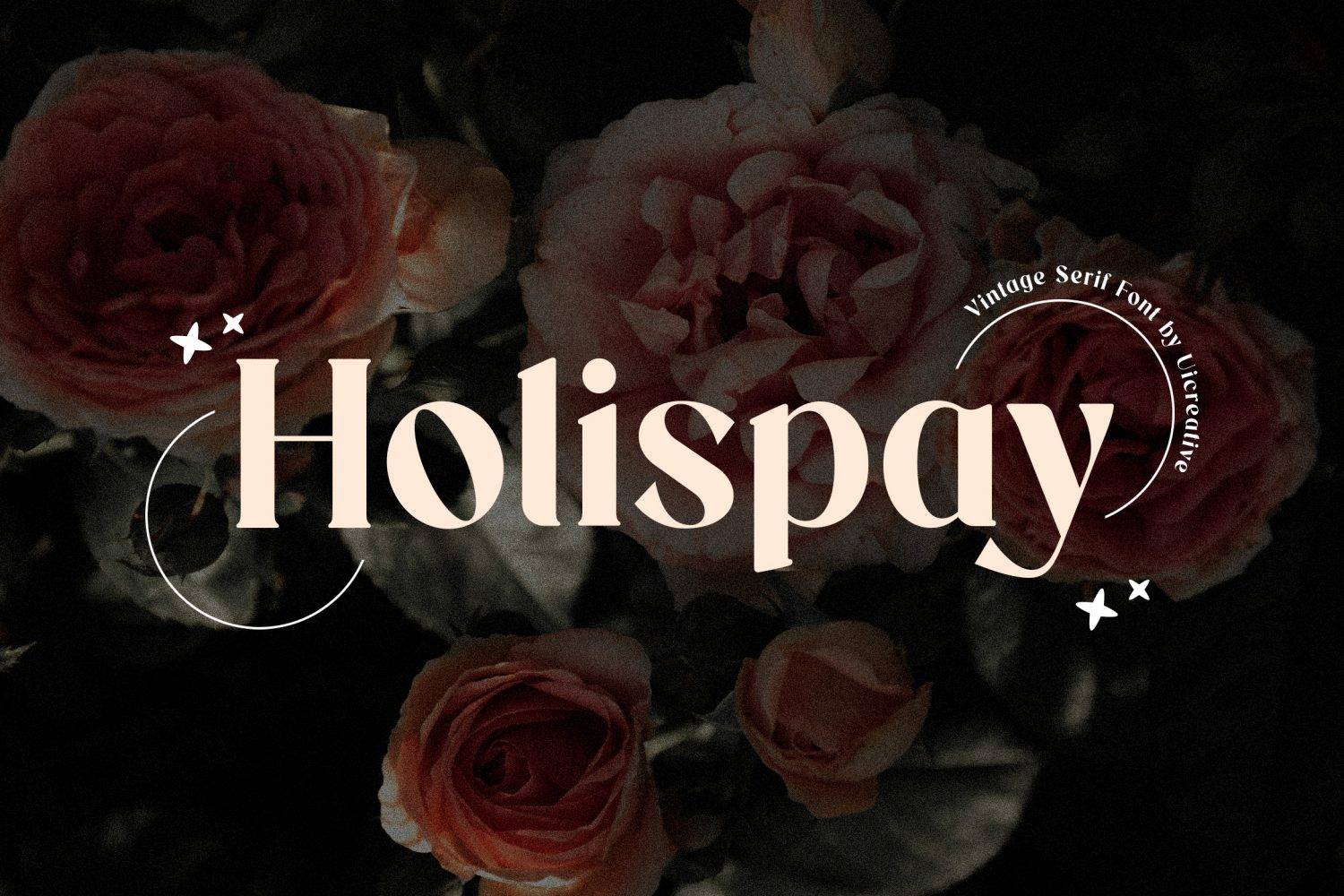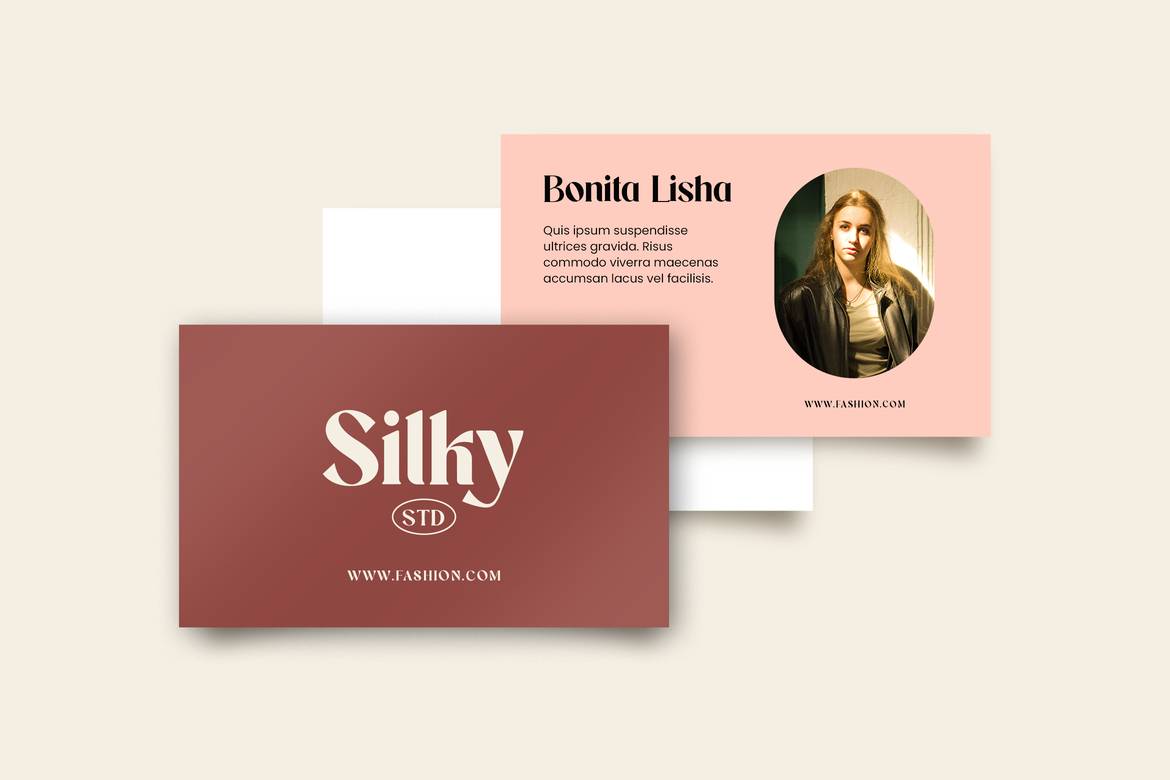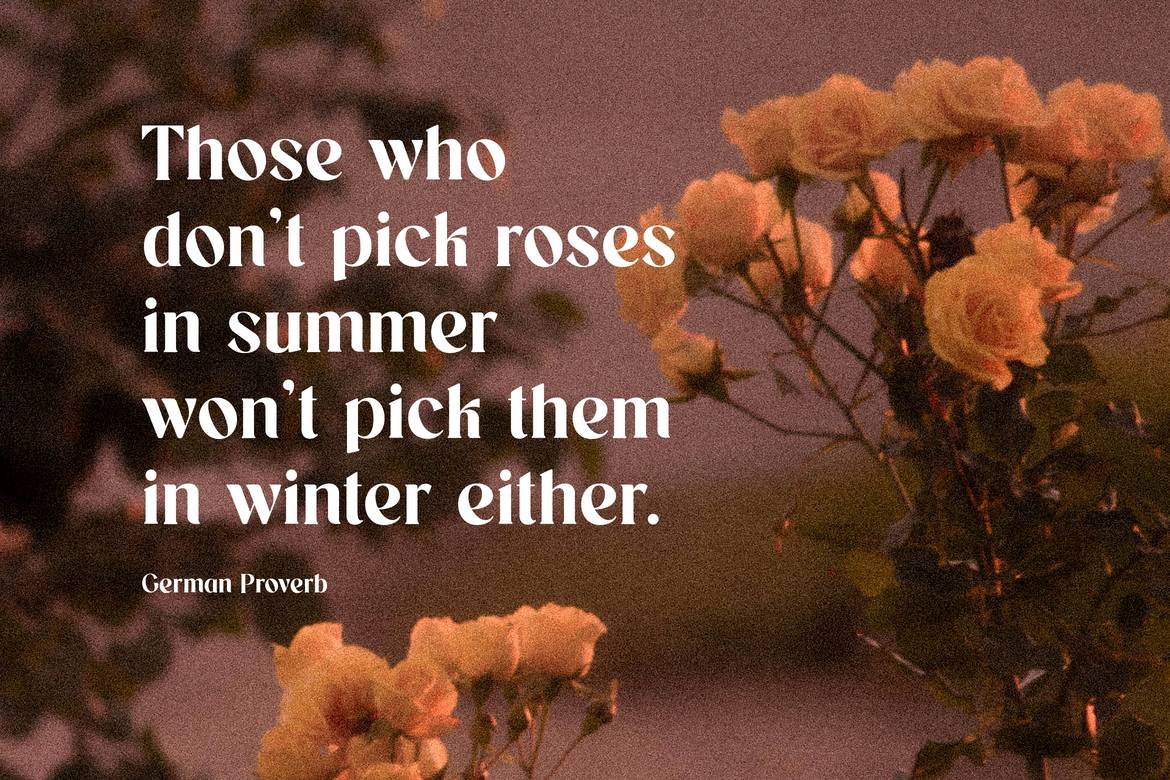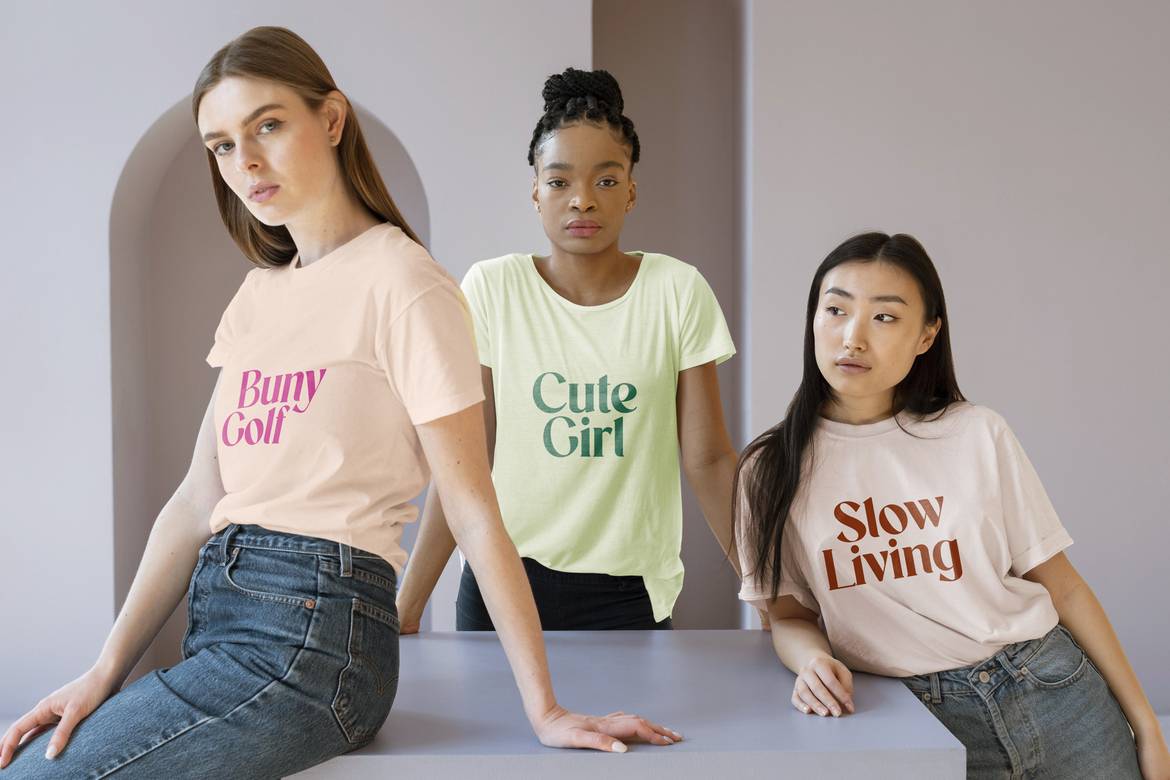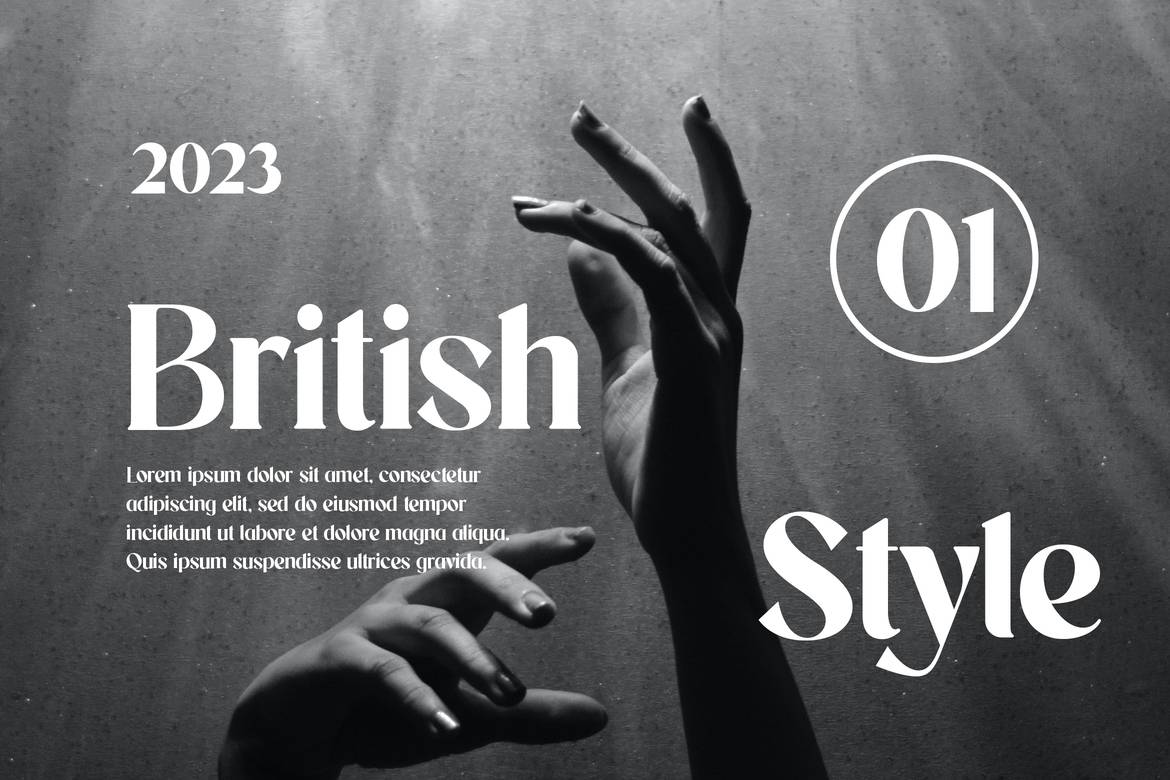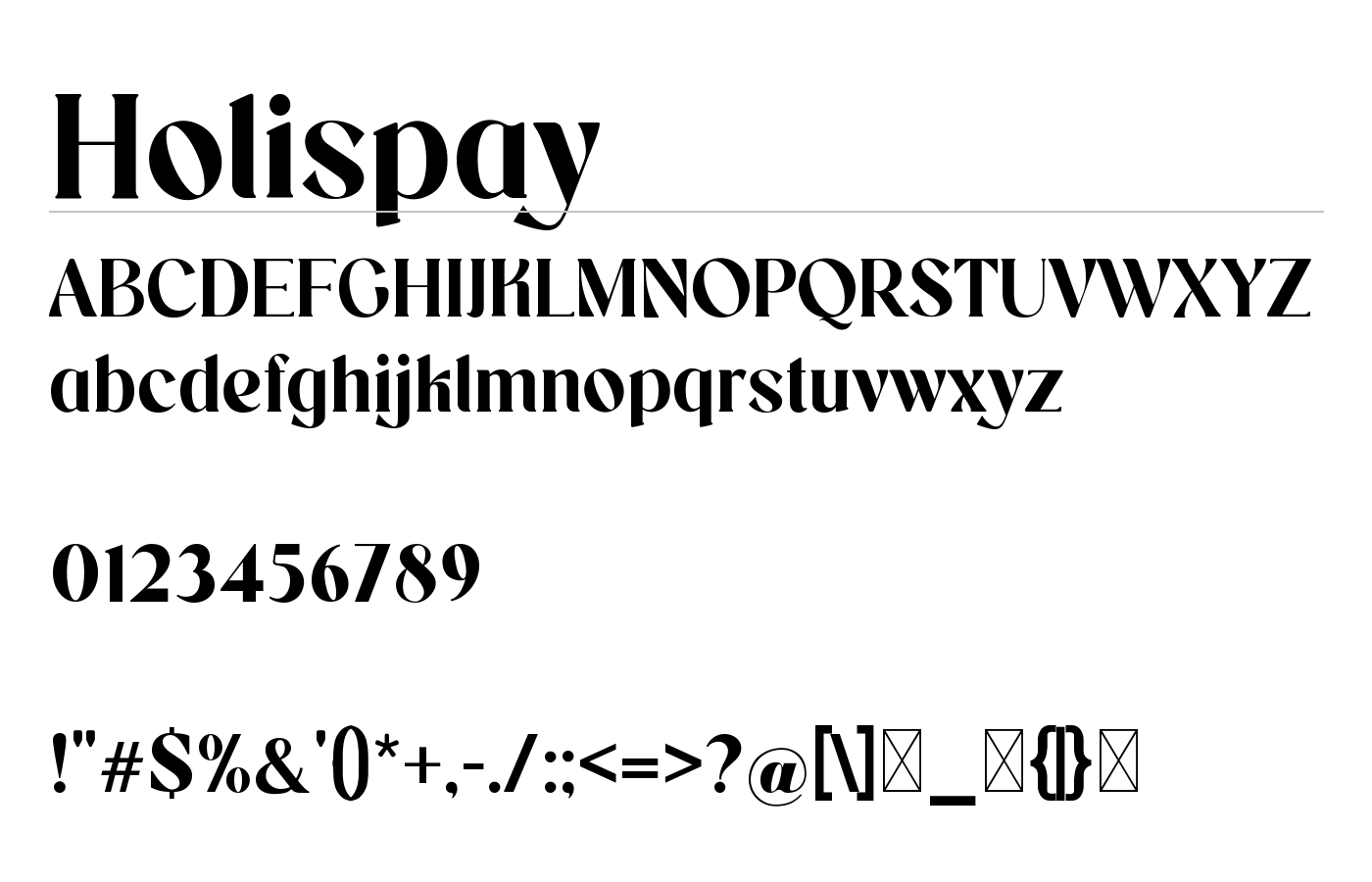
Holispay Vintage is a sophisticated serif font featuring high contrast between thick and thin strokes and elegantly bracketed, sharp serifs that evoke a classic yet stylish feel. Its unique letterforms, such as the distinctively curved Q tail and strong, modern shapes, blend vintage charm with contemporary grace, making it perfect for luxury branding, editorial headlines, and fashion packaging. This font’s refined presence adds a timeless, upscale vibe wherever an elegant and memorable impression is desired.
Holispay Vintage Font
About Holispay Vintage Font